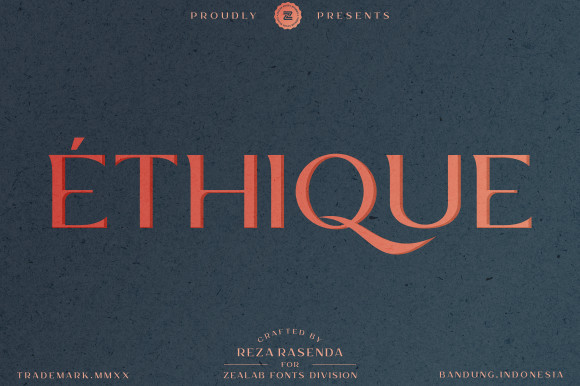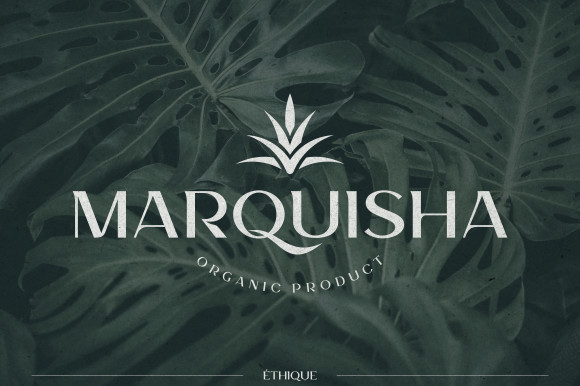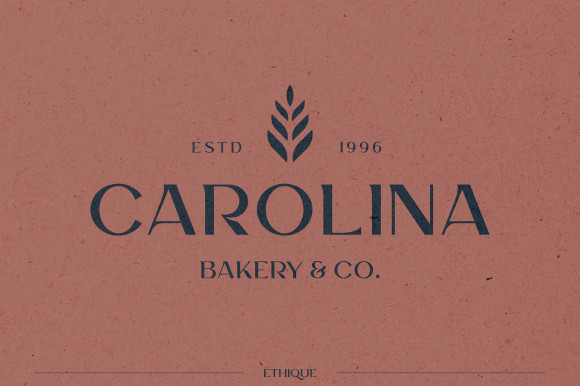
Ethique Font
Ethique is a luxurious display font. It maintains its classy calligraphic influences while feeling contemporary and fresh. It will elevate a wide range of design projects to the highest level, be it branding, headings, wedding designs, invitations, signatures, logos, labels, and much more!